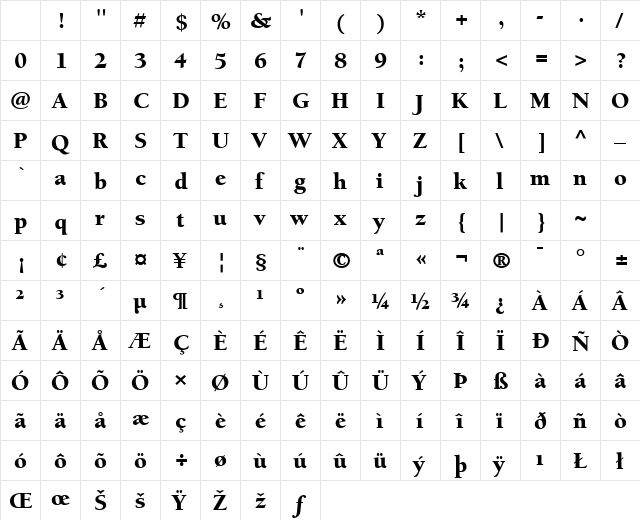
Berkeley Retrospective Black SSi wears its vintage influences proudly, with letterforms that recall mid-century signage, classic packaging, and nostalgia-driven design.
Font Pairing: Combine Berkeley Retrospective Black SSi with a simple slab or neutral sans - period-accurate companions reinforce the vintage feel without competing for attention.
Pro Tip: Lean into Berkeley Retrospective Black SSi's period character by pairing it with aged paper textures, muted colour palettes, and vintage illustration styles.